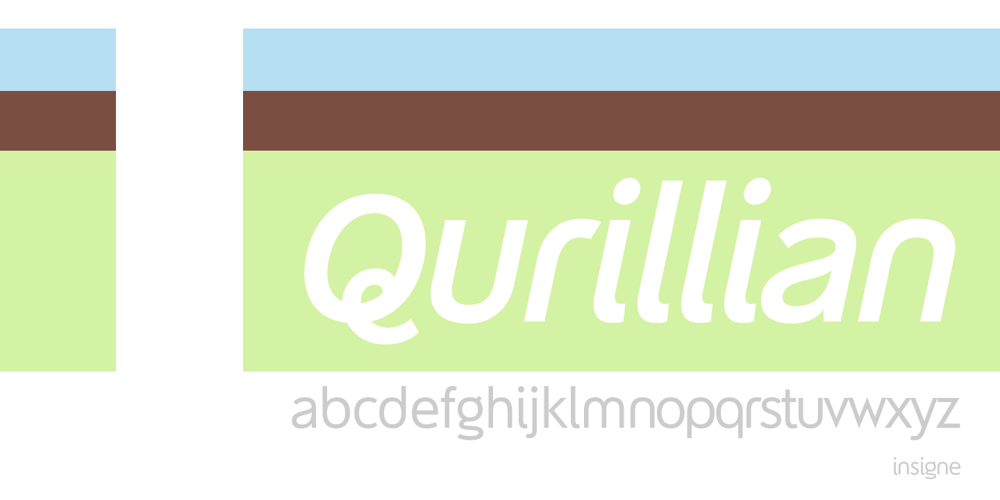
Qurillian
Qurillian font
Qurillian Font Family was designed by Jeremy Dooley and published by insigne. Qurillian contains 6 styles and family package options. A simplistic but usable sans-serif from DooleyType. Qurillian includes a number of advanced OpenType features.